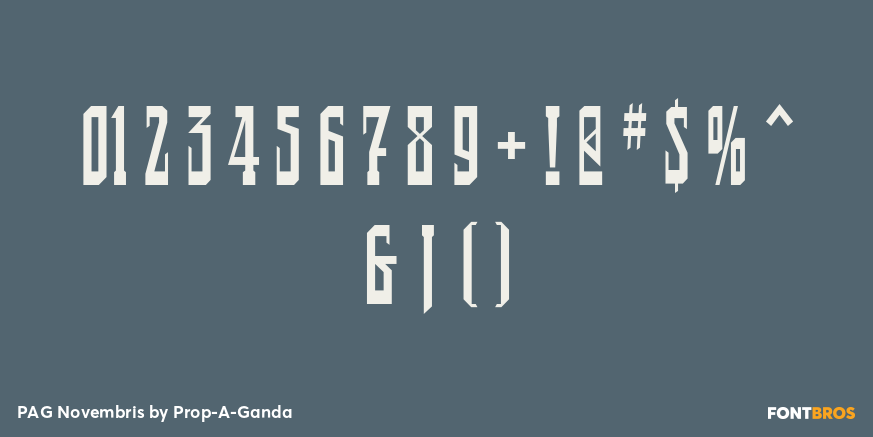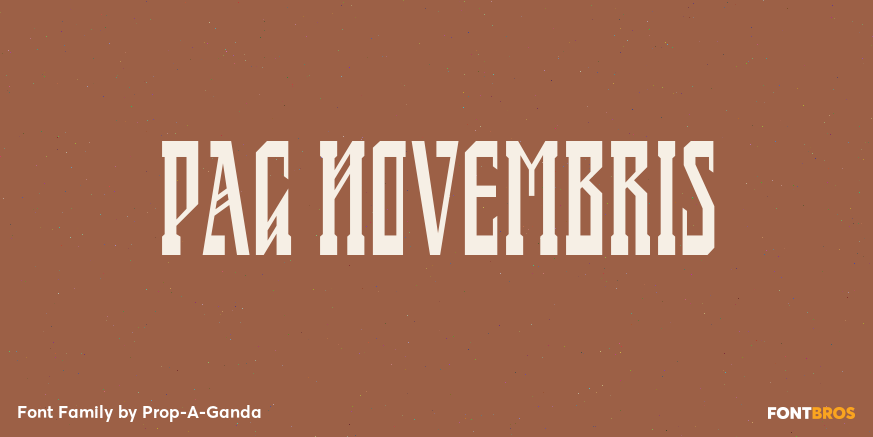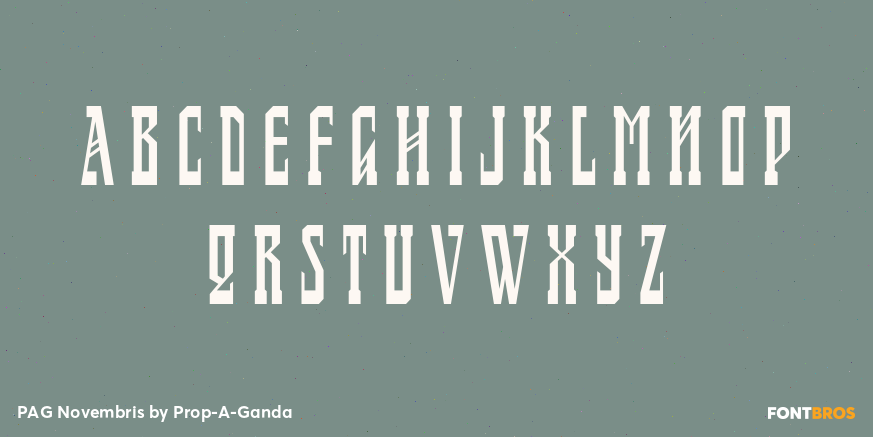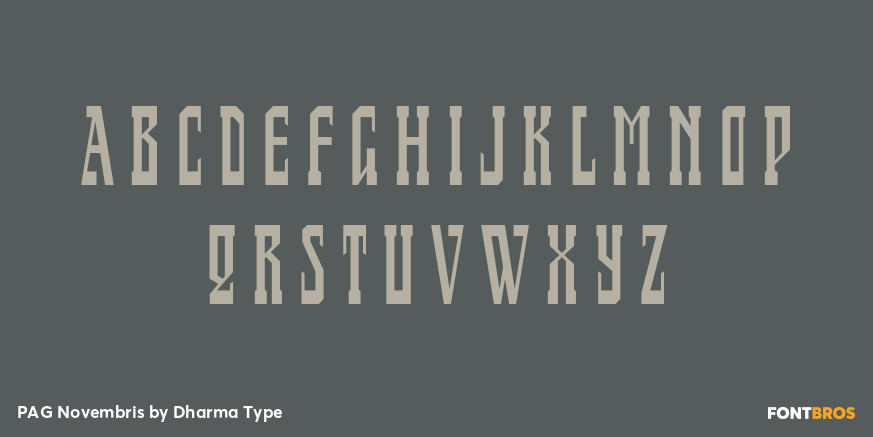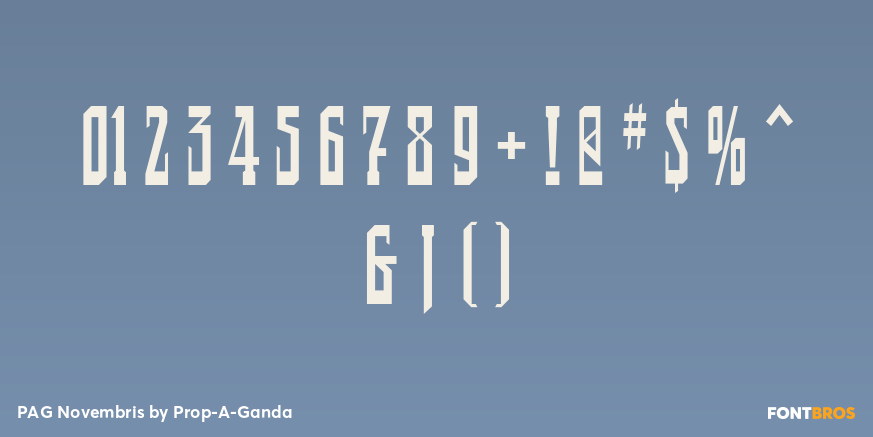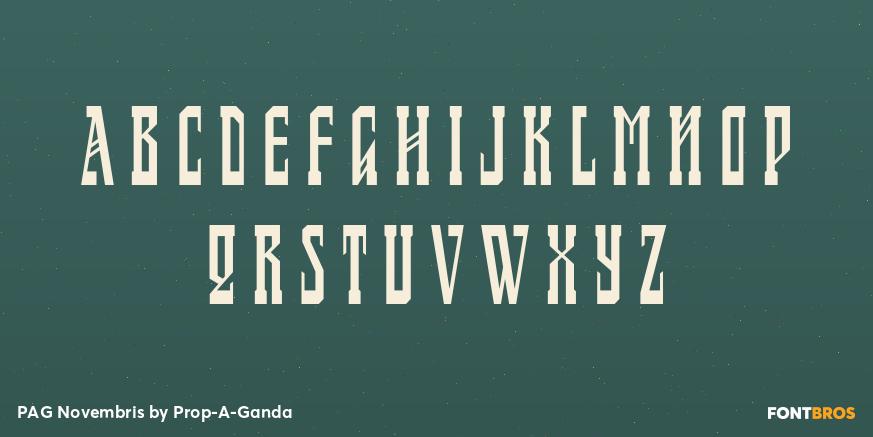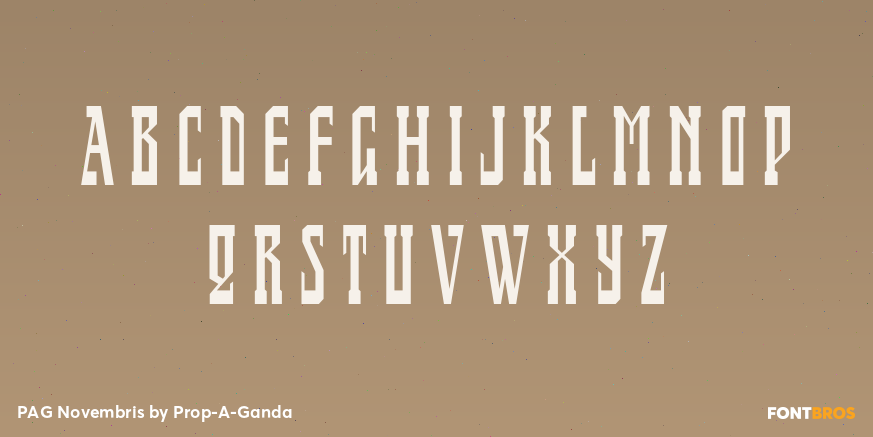
PAG Novembris
Font Family by Dharma Type
Inspired by and based on retro propaganda posters, movie posters, shopfront lettering & advertisements in the early 20th century. This is perfect font for your retrostyle project.